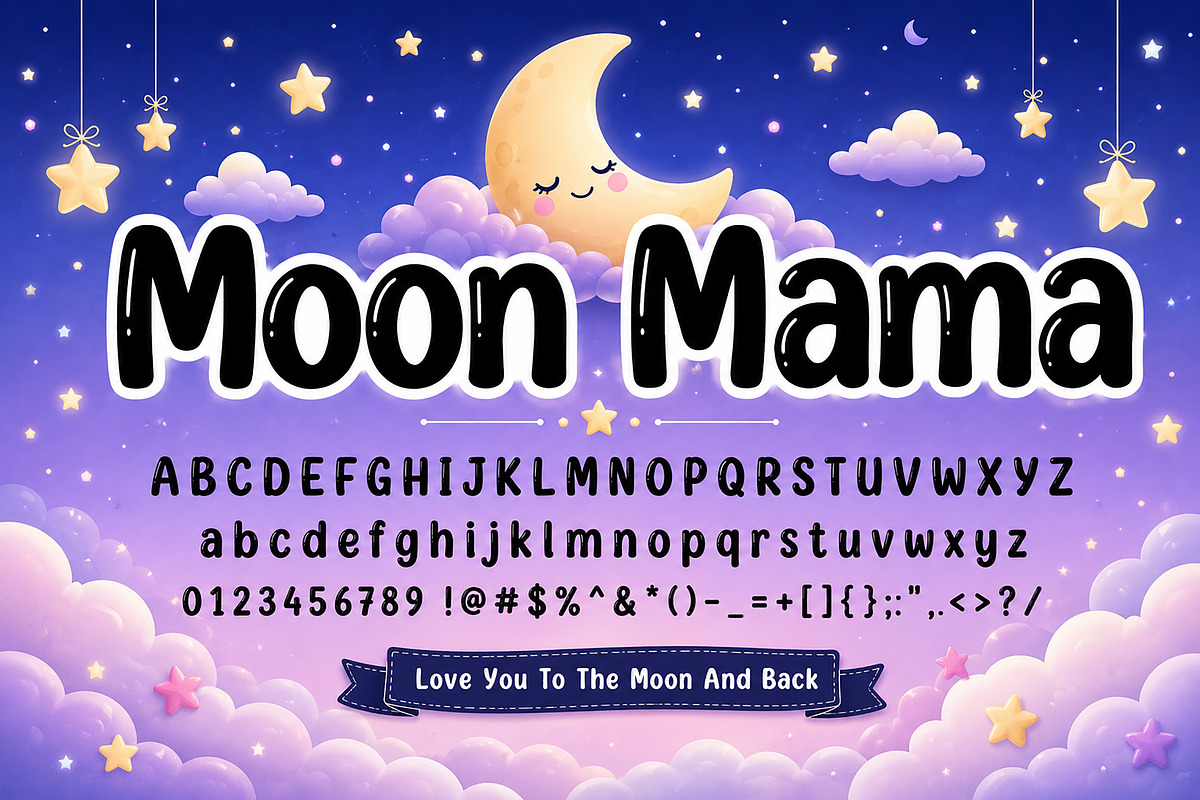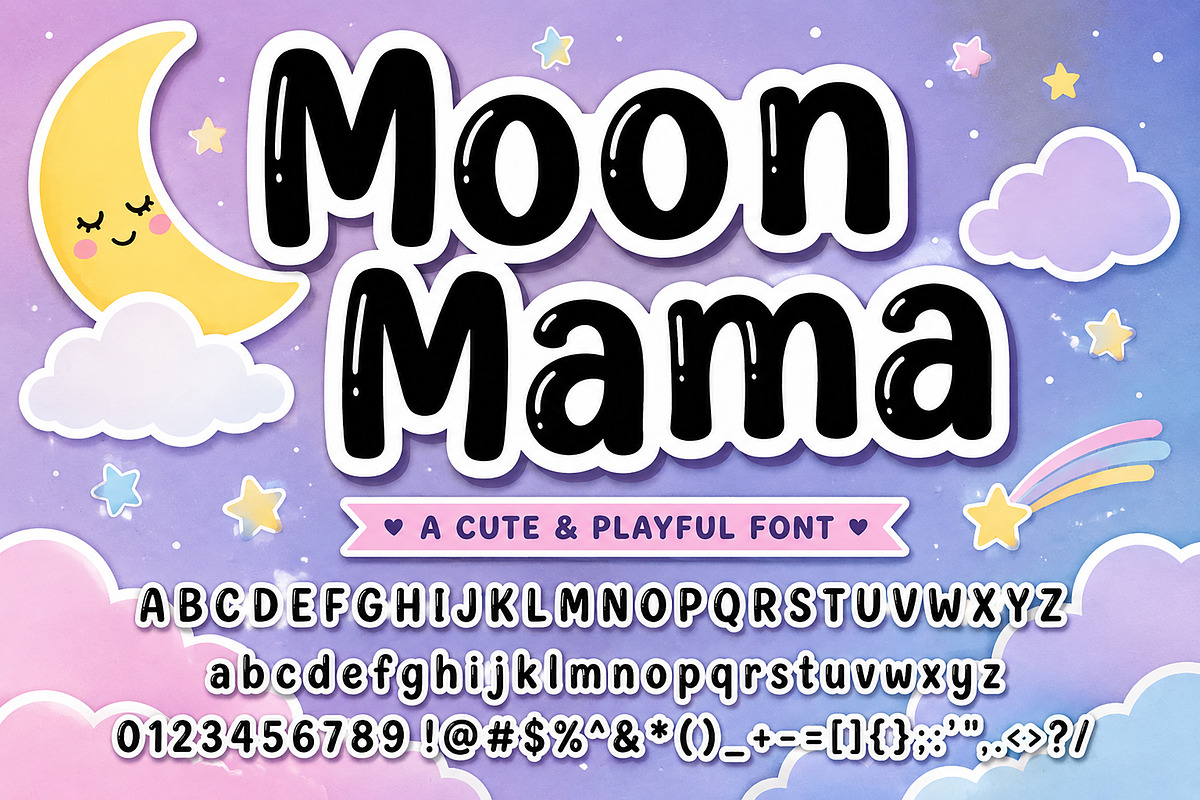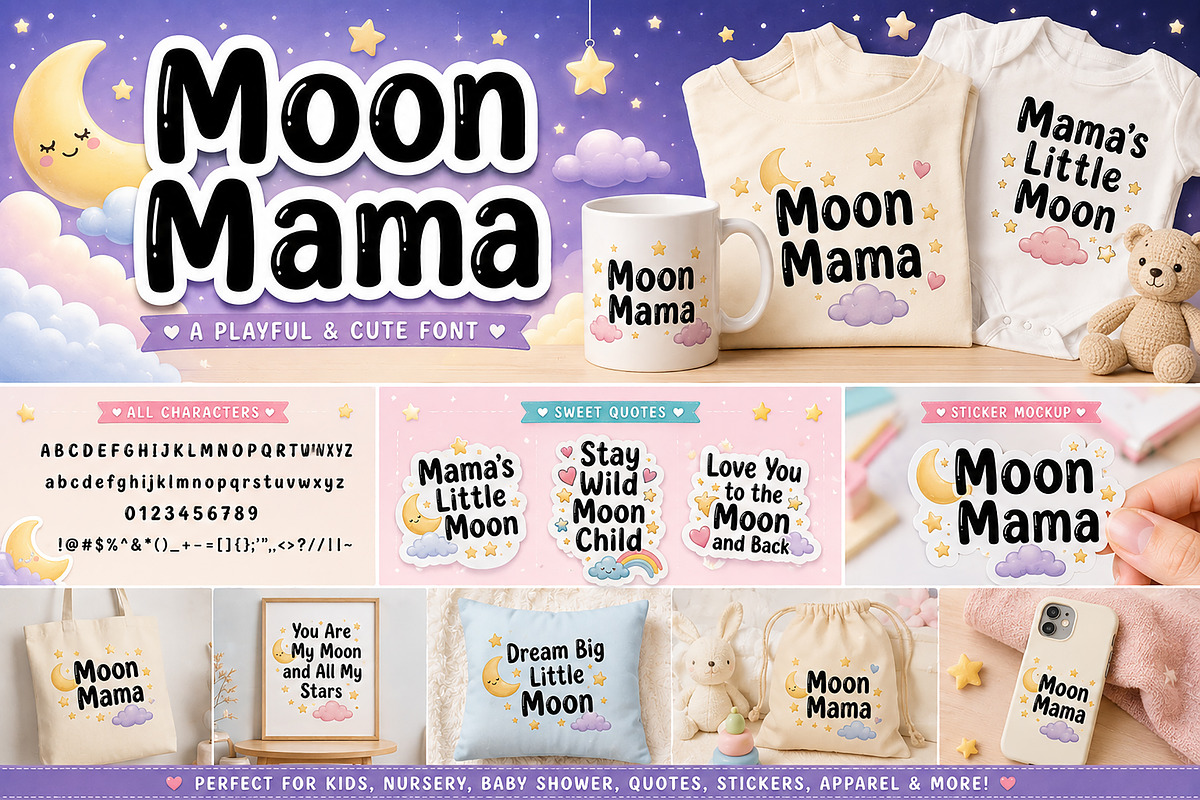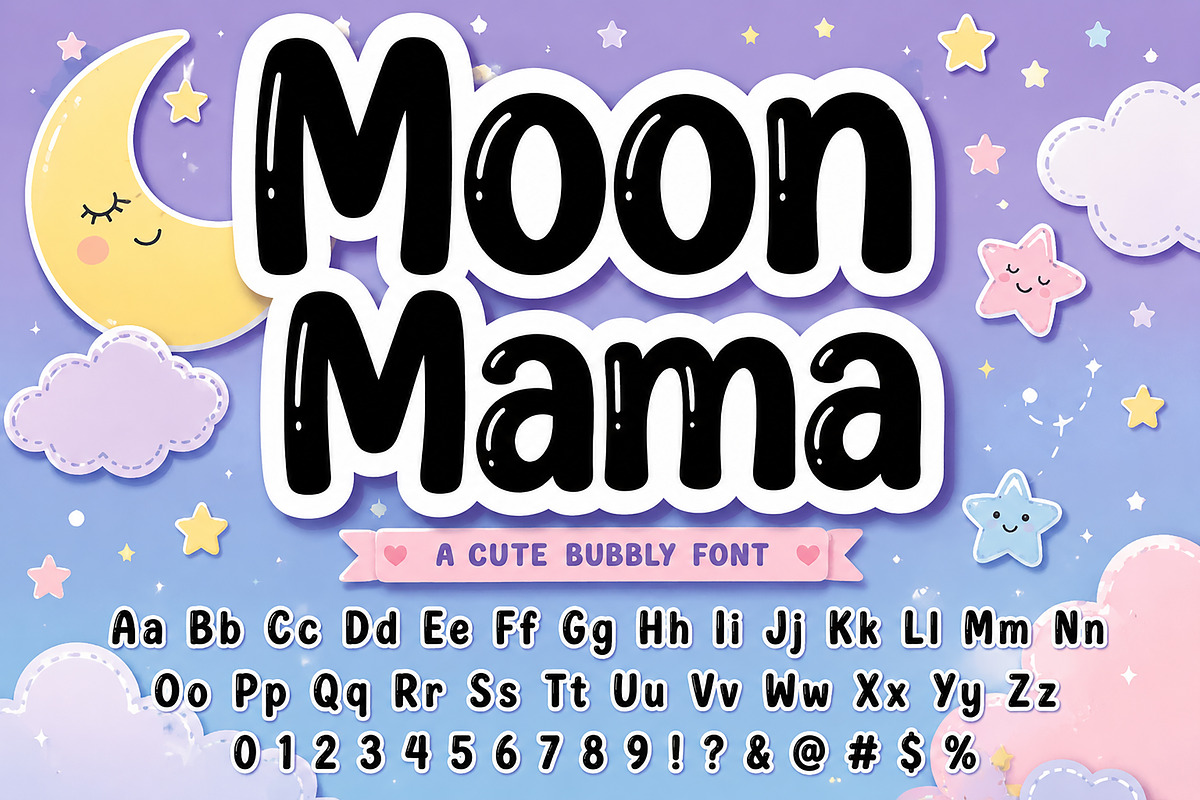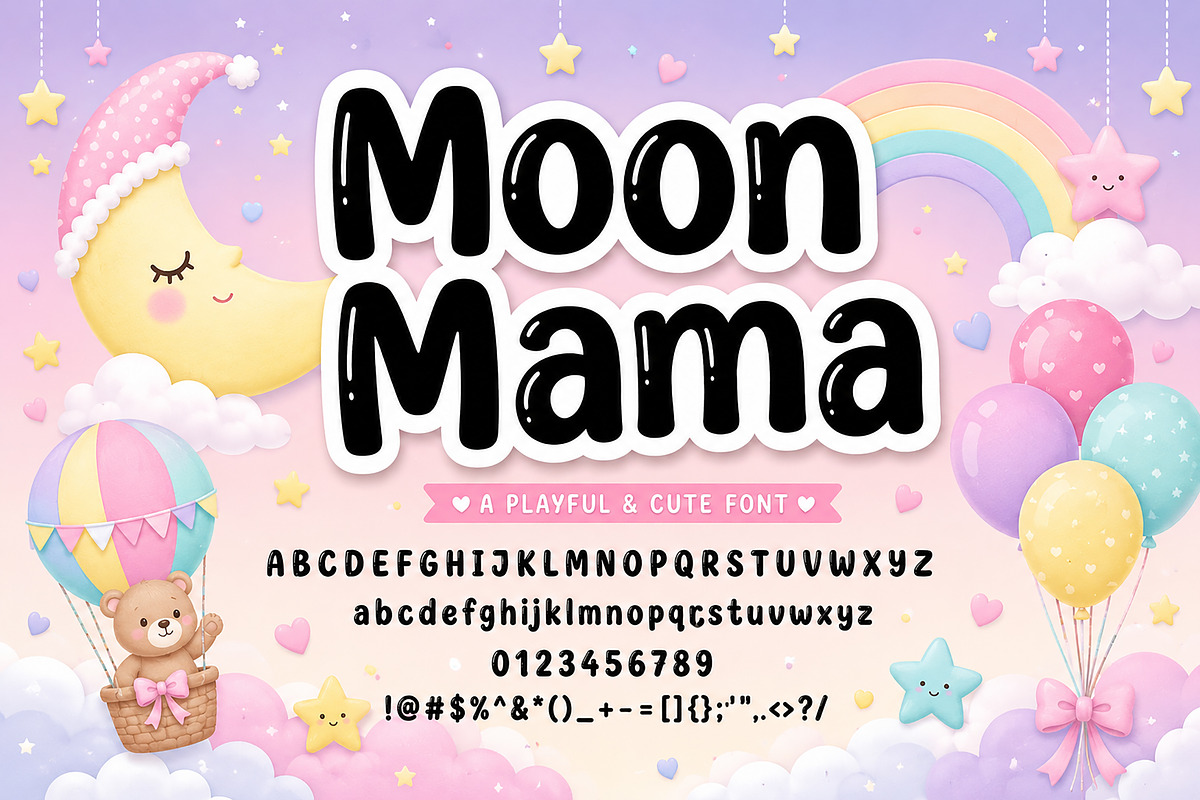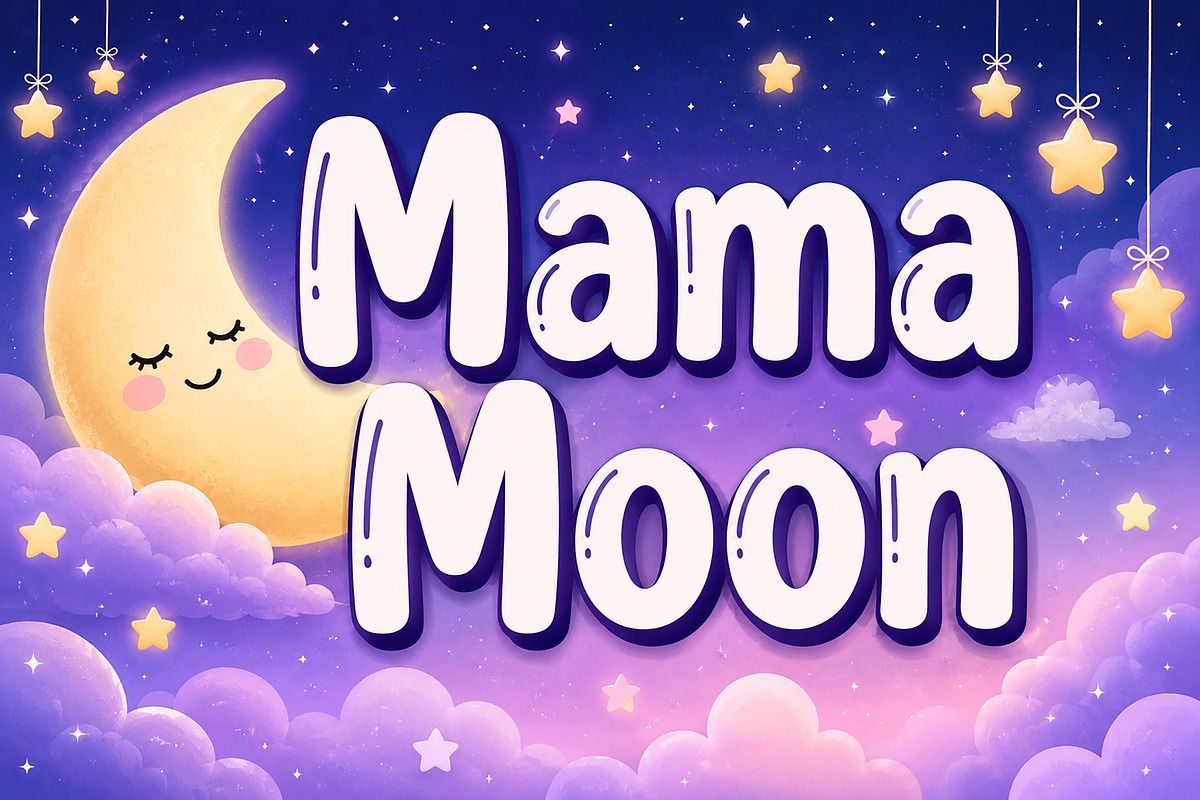
Moon Mama
Moon Mama – Cute Playful Display Font
Moon Mama is a cute and playful display font with a bold handwritten style, perfect for kids designs, posters, branding, packaging, social media, and fun typography projects.
Moon Mama is a fun and cheerful display font featuring bold rounded letterforms and a playful handwritten personality. Its cute and friendly appearance makes it perfect for designs that need a joyful, warm, and approachable feel.
This font works beautifully for children’s products, playful branding, posters, packaging, social media graphics, invitations, stickers, merchandise, and creative display typography. The soft curves and quirky details create a charming handmade look that instantly grabs attention.
Whether you’re designing for print or digital projects, Moon Mama adds a sweet, energetic, and modern touch to every layout.
Kids branding, posters, packaging, social media graphics, invitations, stickers, merchandise, playful logos, greeting cards, display typography, fun headlines.
Uppercase letters, lowercase letters, numbers, punctuation, multilingual support, playful handwritten style, rounded letterforms, cute display appearance, perfect for headlines and creative projects.